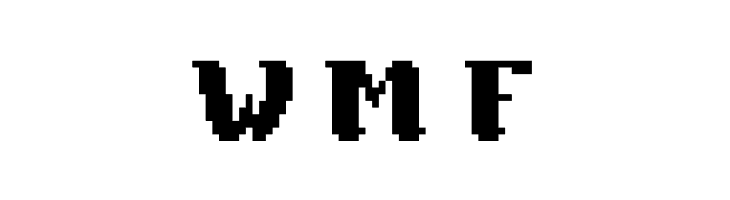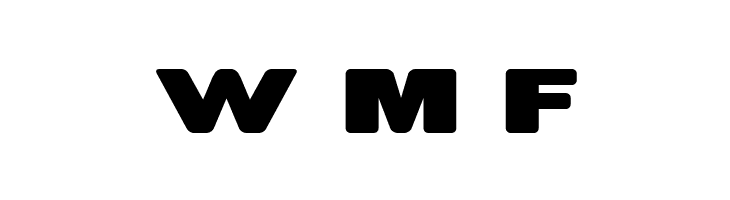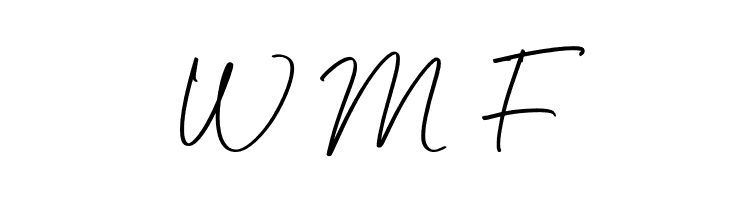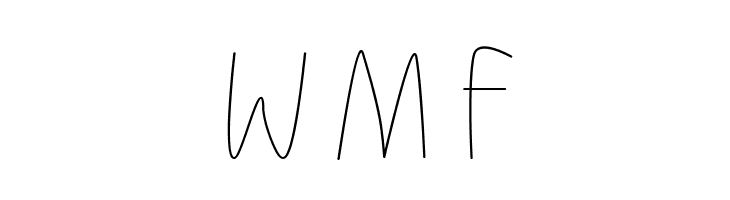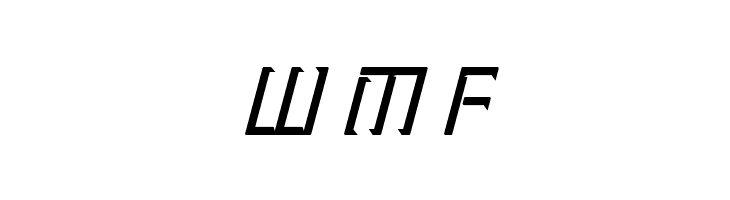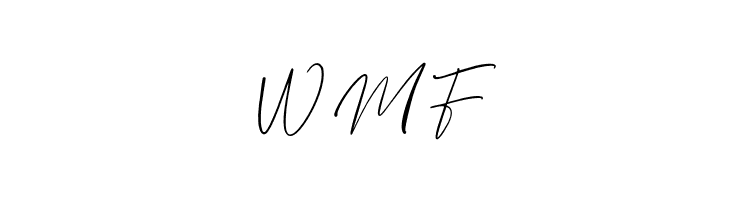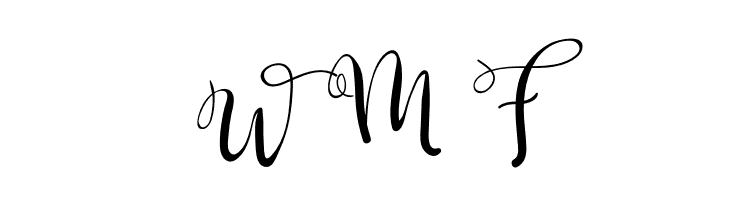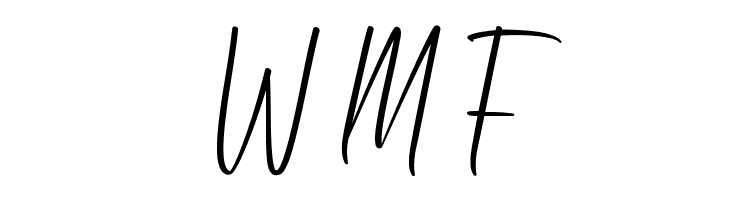
A bold, gothic-inspired font with sharp, angular edges.
A bold, blocky font with thick characters and a strong visual impact.
A bold, playful script font with flowing, hand-drawn letterforms.
A fluid, cursive font with a natural handwritten style.
A playful, handwritten font with thin, flowing lines and a whimsical style.
A bold, angular font with a futuristic and dynamic design.
A graceful, flowing script font with a handwritten style.
An elegant and flowing script font with decorative flourishes.
A graceful, handwritten script font with elegant, flowing strokes.
A bold, expressive script font with playful, interconnected strokes.